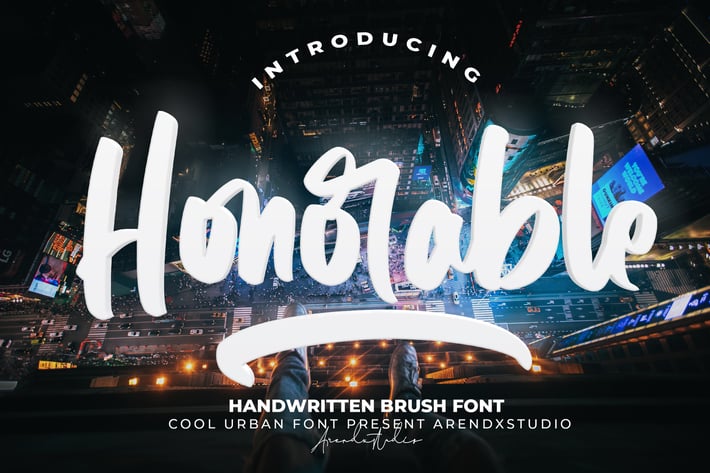
Honorable - Handwritten Brush Font
Honorable - Brush Handwritten Font with its distinctive character that can be easily implemented in your various design projects . Honorable came with opentype features such stylistic alternates, stylistic sets & ligatures good for logotype, poster, badge, book cover, tshirt design, packaging and any more.
Features : • Character Set A-Z • Numerals & Punctuations (OpenType Standard) • Accents (Multilingual characters) • Ligature